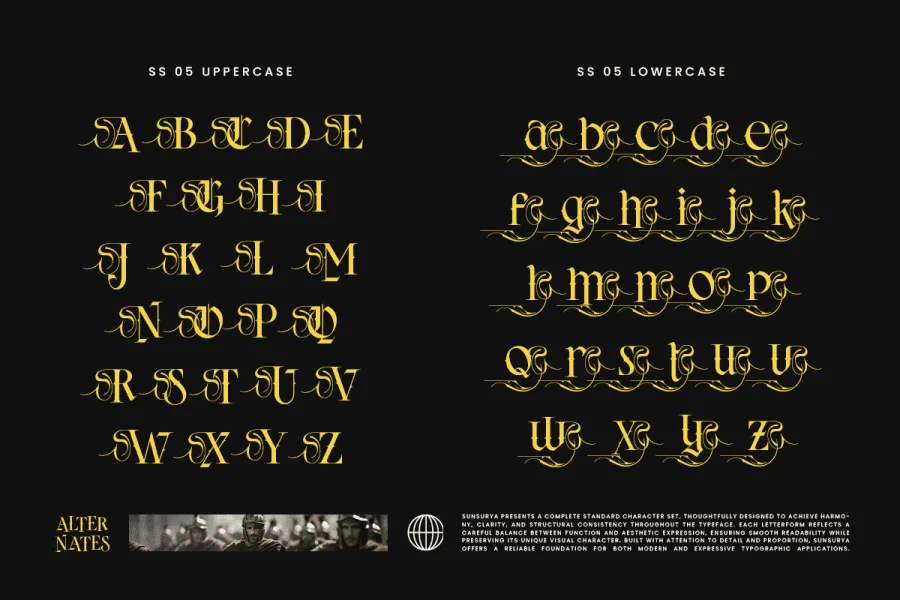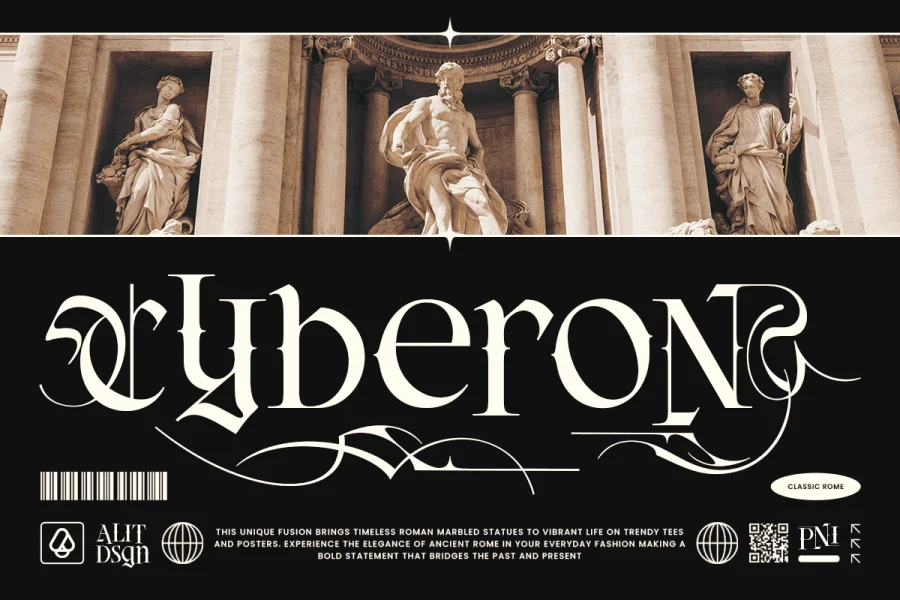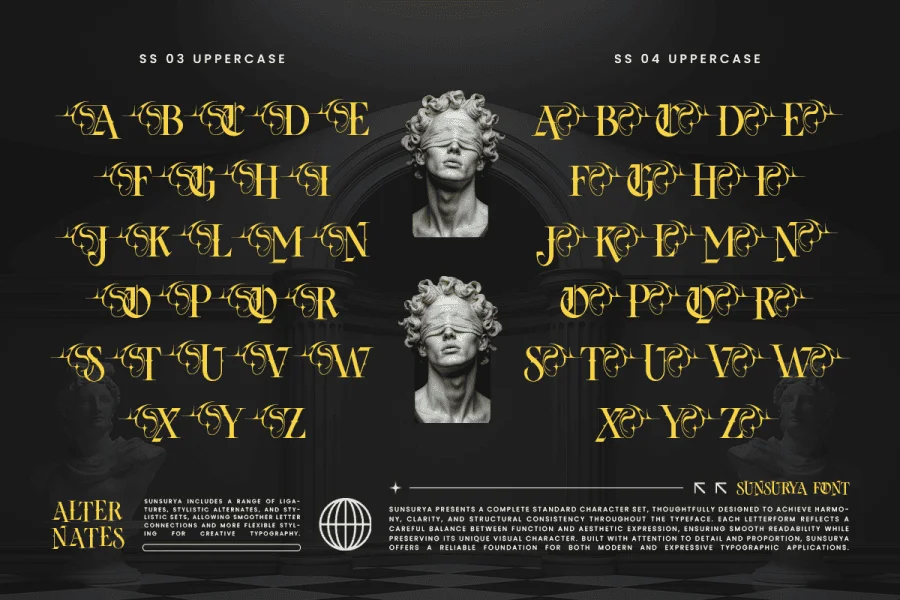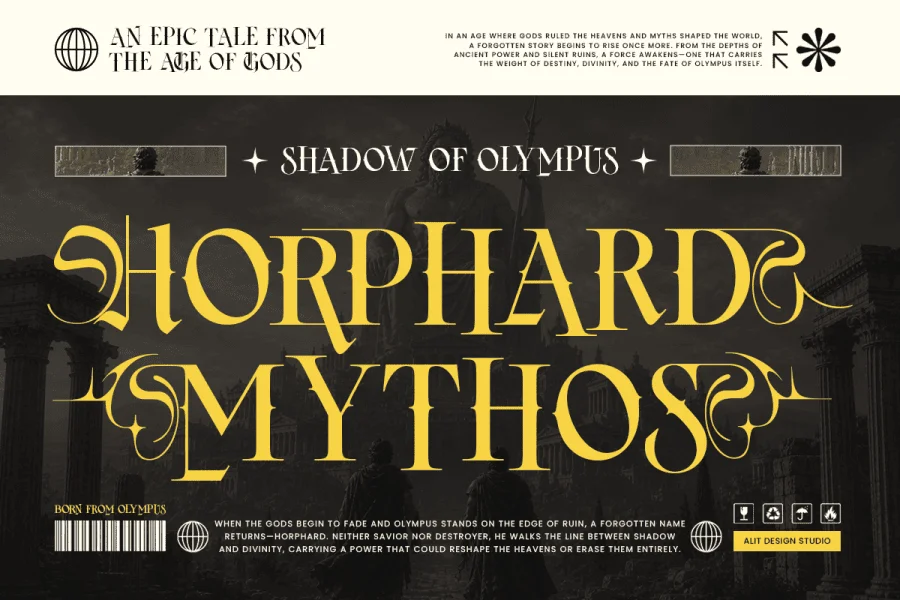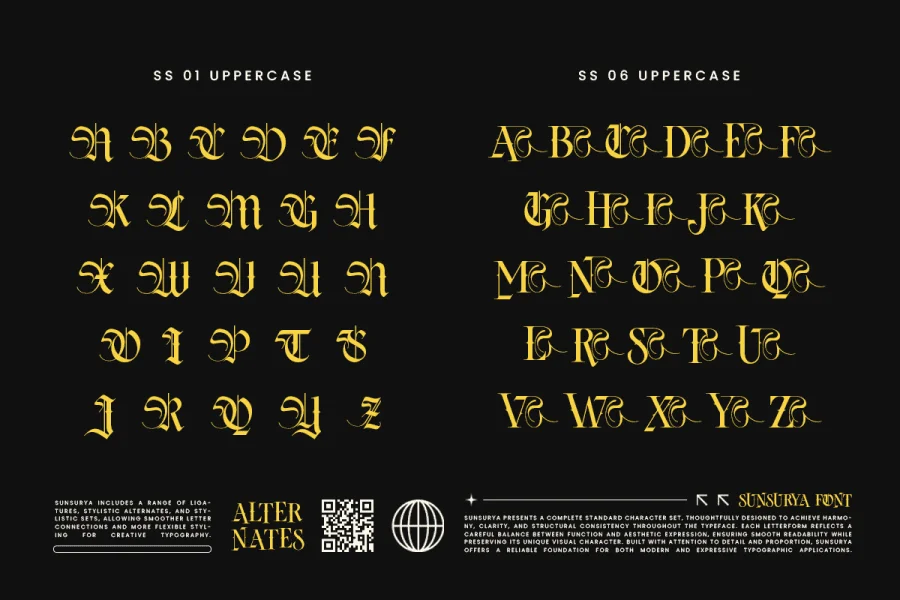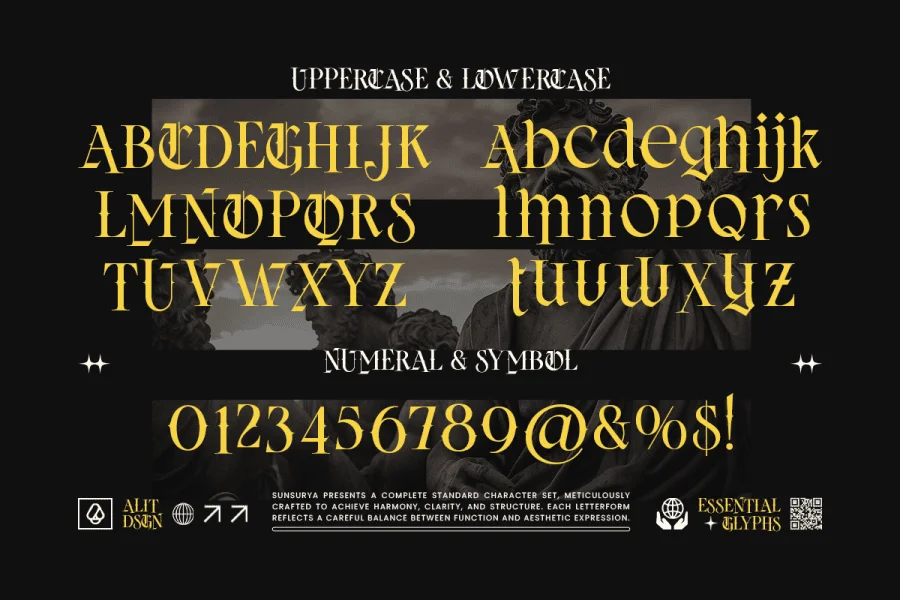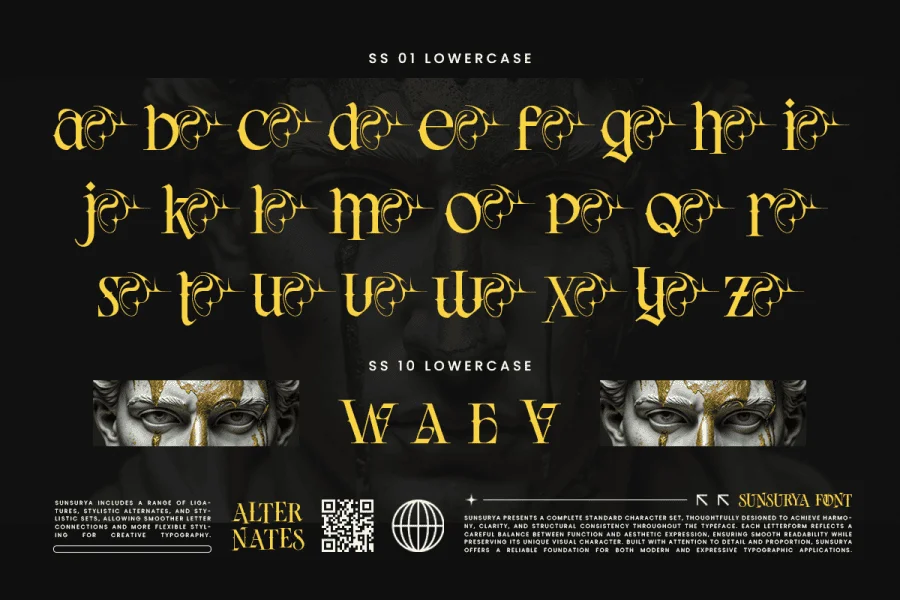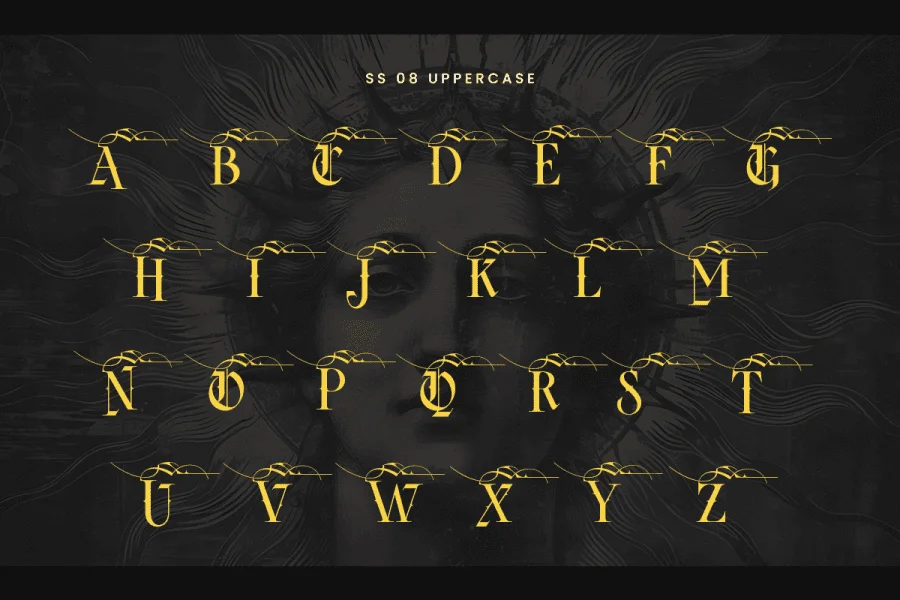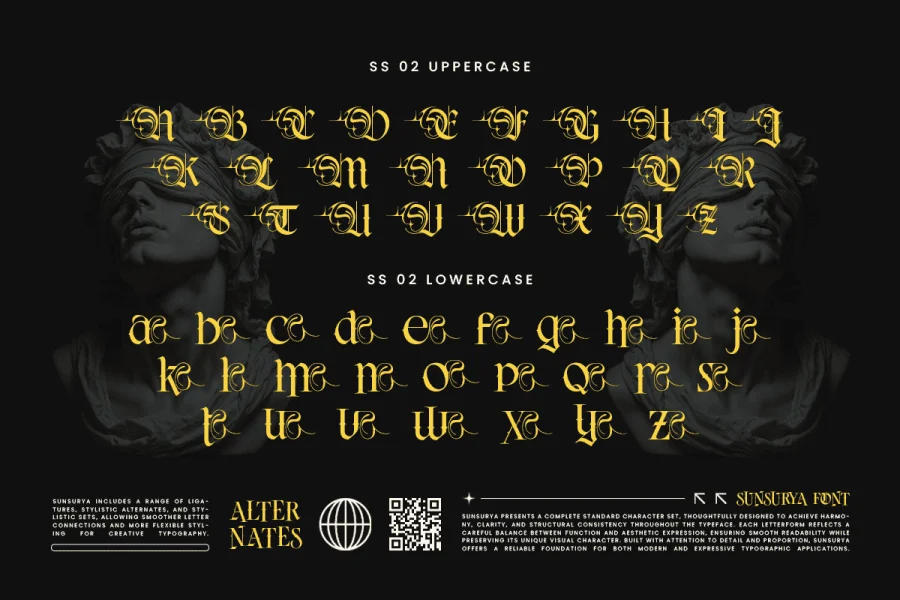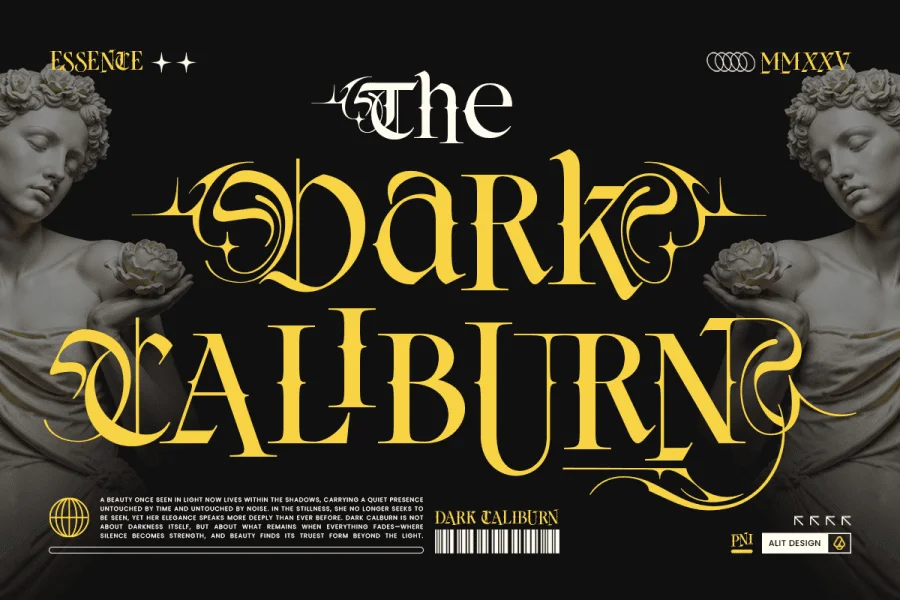
Sunsurya – A Timeless Blackletter Typeface
Introducing Sunsurya, a masterful blackletter typeface crafted by Alit Design Studio. Designed to strike a perfect balance between historical elegance and contemporary expression, Sunsurya brings a bold, dramatic, and highly ornamental presence to your typographic projects.
Inspired by classical artistry and refined with modern structural consistency, this font offers a complete standard character set that guarantees harmony and clarity. Whether you are aiming for a vintage, gothic, or cinematic aesthetic, Sunsurya provides a reliable foundation for expressive typography without sacrificing readability.